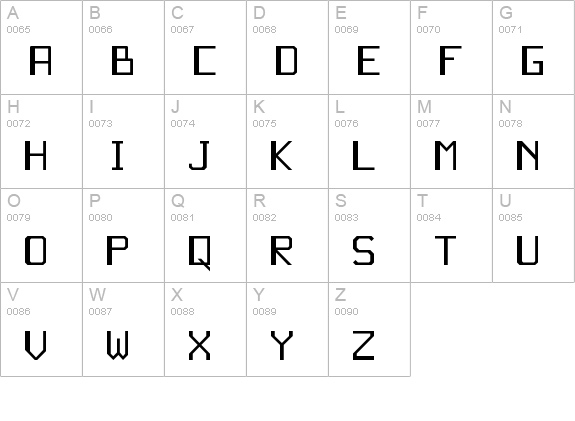
JD Gina Regular Font Details
JD Gina Regular is the standard, neutral variant in the JD typeface family \xE2\x80\x94 well suited to general body text, paragraphs, and standard typographic work.
JD Gina Regular font is a stylish and versatile typeface that is perfect for adding a touch of elegance to any design project. With its clean lines and classic look, this font is sure to make a statement. Whether you're creating a logo, designing a website, or crafting a beautiful invitation, JD Gina Regular font will bring a professional and polished feel to your work. One of the best things about JD Gina Regular font is that it is free. That's right, you can download this incredible font for absolutely no cost at all. It's freely available to download at FontsMarket.com, making it accessible to anyone in need of a high-quality typeface without breaking the bank. The JD Gina Regular font is incredibly versatile, making it suitable for a wide range of projects and applications. Its clean and modern design makes it an excellent choice for both digital and print materials. From business cards to brochures, websites to social media graphics, this font will elevate your designs and make them stand out from the crowd. Not only is JD Gina Regular font visually stunning, but it is also incredibly easy to use. Its legible letterforms and well-balanced spacing ensure that your text is readable and visually appealing. Whether you're a professional designer or a beginner, this font will make your work look polished and professional. In conclusion, JD Gina Regular font is a must-have for designers and creatives looking to add a touch of elegance and sophistication to their projects. With its clean lines, classic style, and versatility, this font is sure to enhance any design. And the best part? It's free! Don't miss out on the opportunity to download JD Gina Regular font for free at FontsMarket.com and take your designs to the next level.